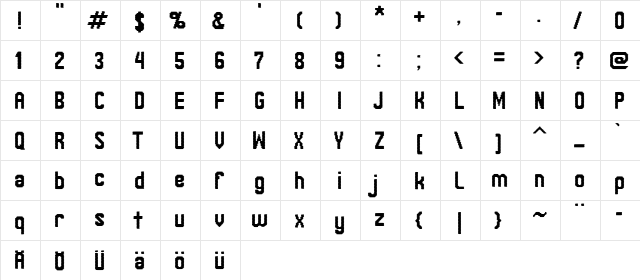
Janinos juosta Regular
| Designer | Gabrieliusmackevi詵s |
Design Context for Janinos juosta Typeface
Janinos juosta offers clean, dependable letterforms without strong stylistic allegiance, making it a practical choice for designers who need flexibility.